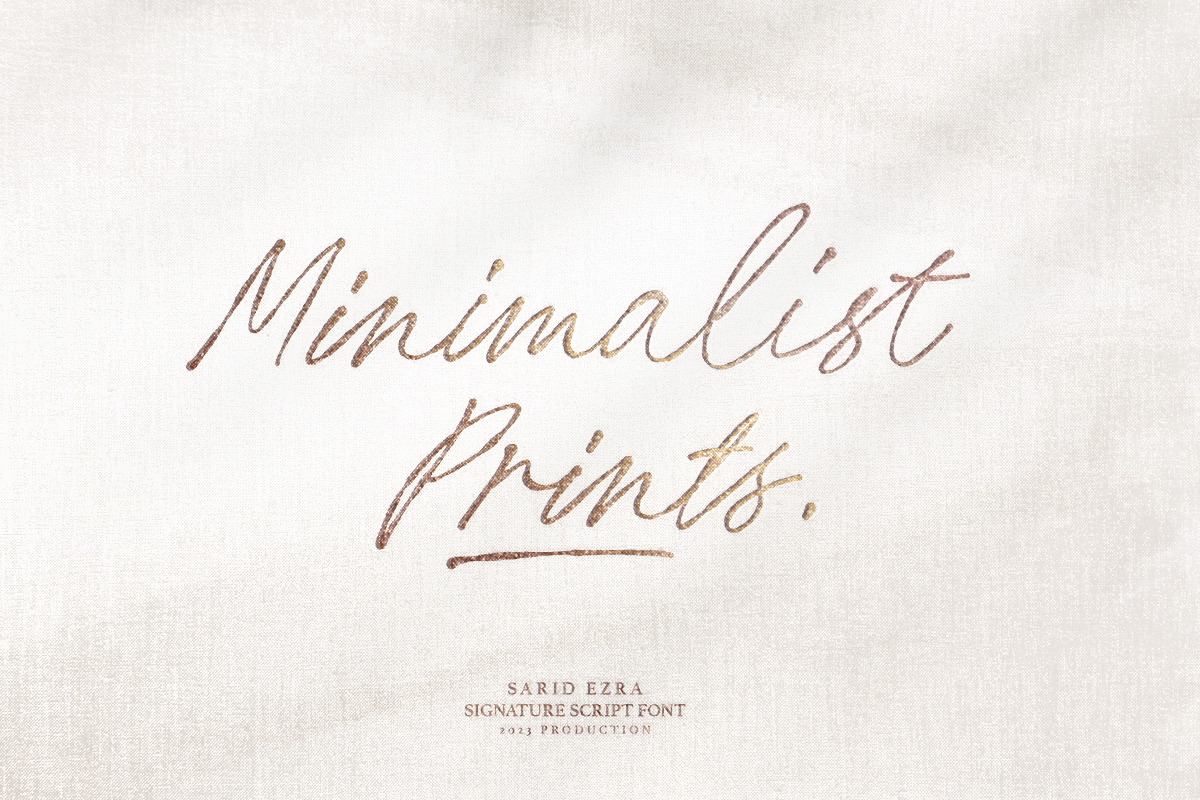
Minimalist Prints - Signature Script Font Free Download is an elegant and refined typeface that combines the beauty of signature-style calligraphy with a minimalist aesthetic. Its flowing curves and natural strokes make it perfect for creating personal branding, logos, invitations, and creative projects. The clean, simple design ensures it stands out while maintaining a sophisticated and professional feel. Whether you're working on a wedding invitation, business card, or logo for a boutique, Minimalist Prints - Signature Script Font Free Download allows you to explore its graceful style in personal projects before purchasing a commercial license. Add a touch of elegance and personality to your designs with this beautifully crafted signature script font.